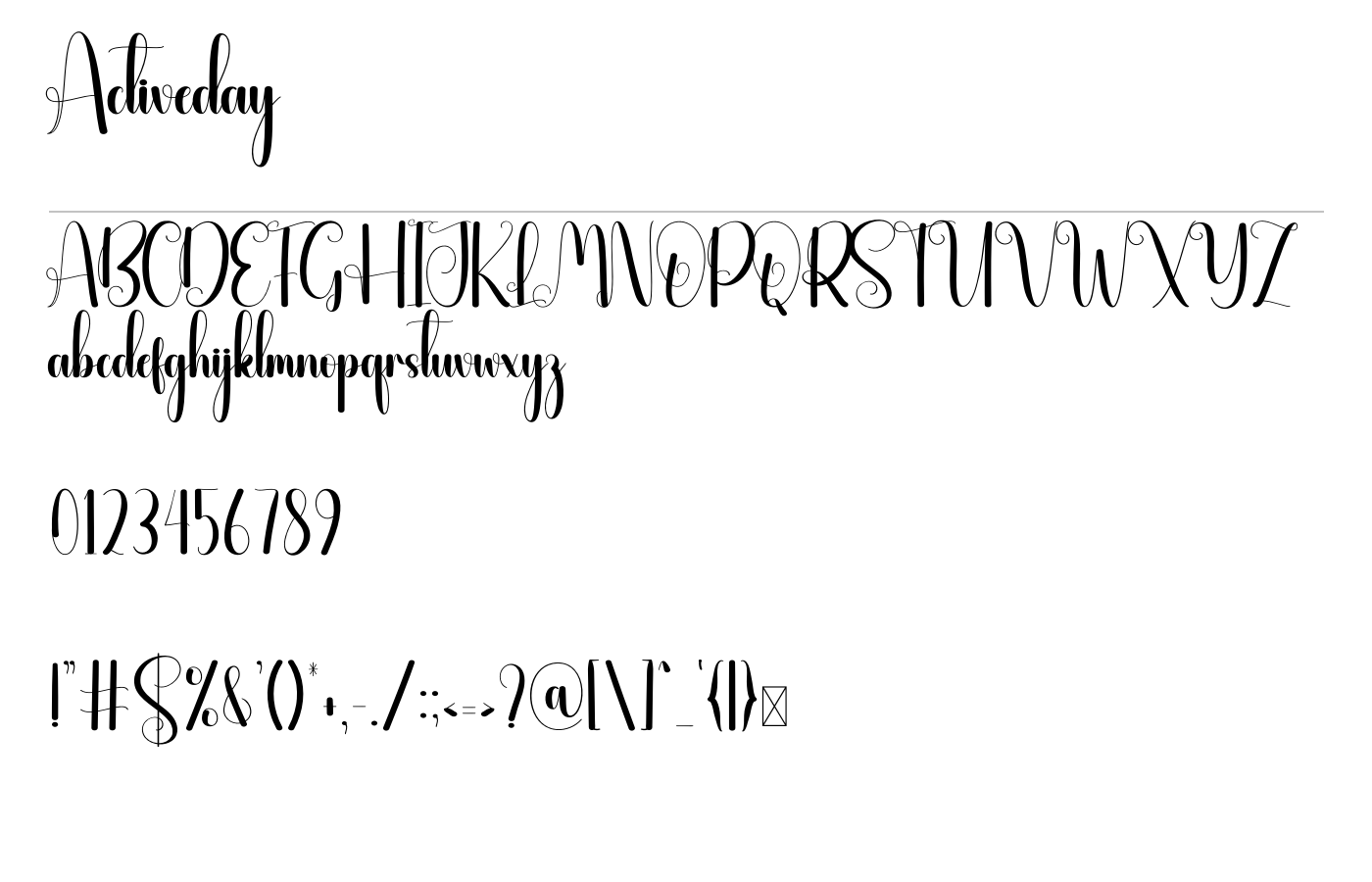
Activeday is a delicate and elegant script font with tall, slender letterforms and graceful swirls that give it a sophisticated and artistic feel. Its high contrast strokes and decorative flourishes make it ideal for stylish branding, invitations, and creative headlines where a refined, feminine touch is desired. This font works best in designs that need a blend of elegance and playful charm, adding a distinctive handcrafted look.
Activeday Font